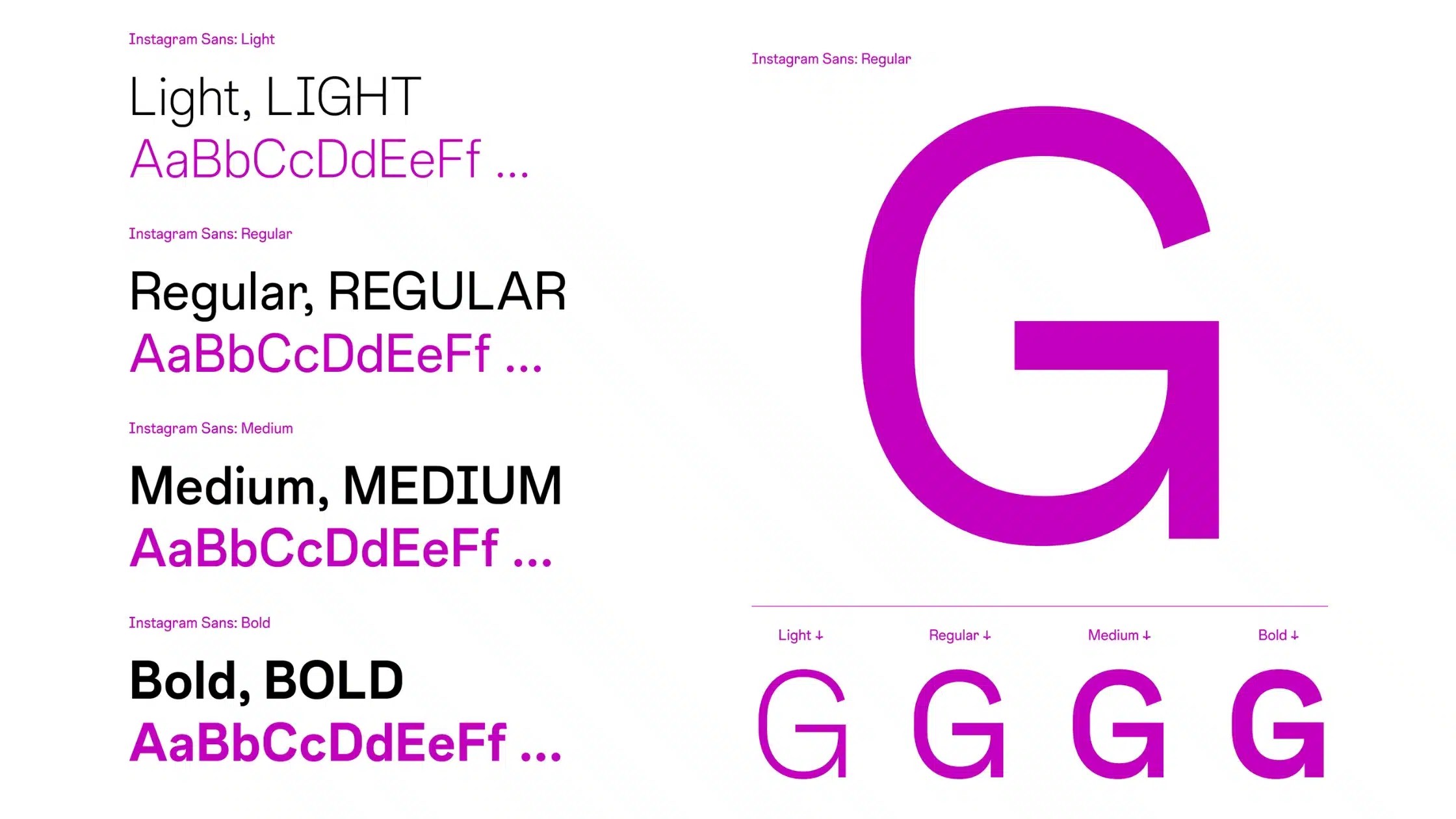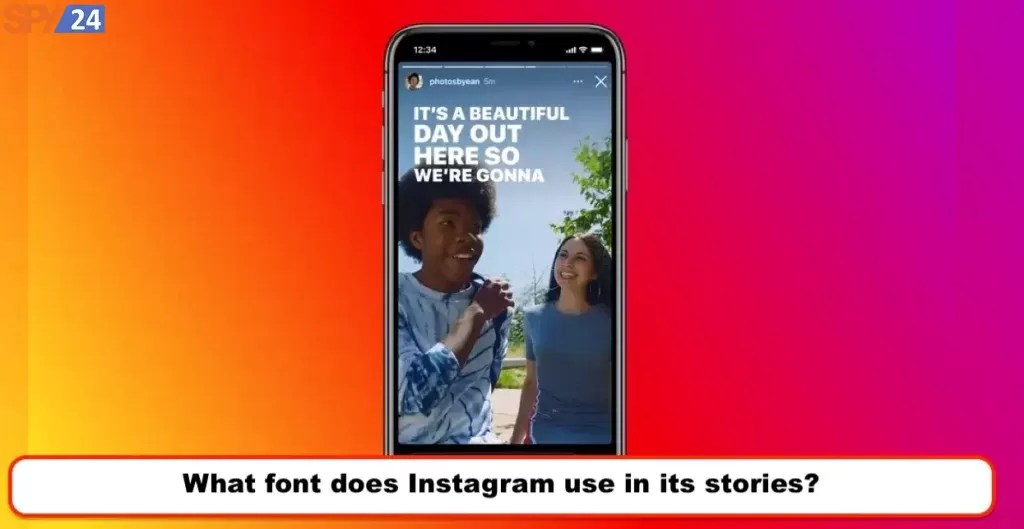
What Font Does Instagram Use Reddit . For comparison, top is helvetica neue, bottom is roboto medium, middle is the screenshot from instagram. Key takeaways on instagram fonts. Instagram sans is our new, global typeface. I write a lot and want to publish it to. The glyph and wordmark inspired this custom style that nods to our heritage. Upload an image, and we’ll search our collection of over 133,000 fonts for the best match. Identify fonts with our font finder tool using an image or photo. The main text style used for the instagram logo, captions, and comments is proxima nova. Proxima nova is the core instagram font used for interface text like captions and comments. Its rounded authenticity promotes visual harmony. Instagram stories uses typefaces like roboto, san francisco, and aveny t.
Proxima nova is the core instagram font used for interface text like captions and comments. The glyph and wordmark inspired this custom style that nods to our heritage. For comparison, top is helvetica neue, bottom is roboto medium, middle is the screenshot from instagram. Key takeaways on instagram fonts. I write a lot and want to publish it to. Instagram stories uses typefaces like roboto, san francisco, and aveny t. Its rounded authenticity promotes visual harmony. Instagram sans is our new, global typeface. Upload an image, and we’ll search our collection of over 133,000 fonts for the best match. The main text style used for the instagram logo, captions, and comments is proxima nova.
What Font Does Instagram Use Reddit Key takeaways on instagram fonts. Instagram sans is our new, global typeface. Upload an image, and we’ll search our collection of over 133,000 fonts for the best match. I write a lot and want to publish it to. The main text style used for the instagram logo, captions, and comments is proxima nova. For comparison, top is helvetica neue, bottom is roboto medium, middle is the screenshot from instagram. Proxima nova is the core instagram font used for interface text like captions and comments. The glyph and wordmark inspired this custom style that nods to our heritage. Identify fonts with our font finder tool using an image or photo. Its rounded authenticity promotes visual harmony. Key takeaways on instagram fonts. Instagram stories uses typefaces like roboto, san francisco, and aveny t.
How To Find And Add Custom Fonts For Instagram Profile (Guide) What Font Does Instagram Use Reddit Key takeaways on instagram fonts. Identify fonts with our font finder tool using an image or photo. For comparison, top is helvetica neue, bottom is roboto medium, middle is the screenshot from instagram. Upload an image, and we’ll search our collection of over 133,000 fonts for the best match. The glyph and wordmark inspired this custom style that nods to. What Font Does Instagram Use Reddit.
How to use all the new fonts on Instagram StoriesHelloGiggles What Font Does Instagram Use Reddit The main text style used for the instagram logo, captions, and comments is proxima nova. Instagram stories uses typefaces like roboto, san francisco, and aveny t. Its rounded authenticity promotes visual harmony. Instagram sans is our new, global typeface. The glyph and wordmark inspired this custom style that nods to our heritage. For comparison, top is helvetica neue, bottom is. What Font Does Instagram Use Reddit.
10+ Best Fonts for Instagram for Social Media Branding 2023 What Font Does Instagram Use Reddit Identify fonts with our font finder tool using an image or photo. The glyph and wordmark inspired this custom style that nods to our heritage. Upload an image, and we’ll search our collection of over 133,000 fonts for the best match. Its rounded authenticity promotes visual harmony. Instagram stories uses typefaces like roboto, san francisco, and aveny t. I write. What Font Does Instagram Use Reddit.
Instagram Launches New Fonts & Stickers for Stories Abby (King) b What Font Does Instagram Use Reddit The main text style used for the instagram logo, captions, and comments is proxima nova. The glyph and wordmark inspired this custom style that nods to our heritage. Proxima nova is the core instagram font used for interface text like captions and comments. For comparison, top is helvetica neue, bottom is roboto medium, middle is the screenshot from instagram. Instagram. What Font Does Instagram Use Reddit.
What Font Does Instagram Use? Instagram Top Font Picks for 2023 Revealed Social Pros What Font Does Instagram Use Reddit Identify fonts with our font finder tool using an image or photo. Upload an image, and we’ll search our collection of over 133,000 fonts for the best match. Proxima nova is the core instagram font used for interface text like captions and comments. For comparison, top is helvetica neue, bottom is roboto medium, middle is the screenshot from instagram. Key. What Font Does Instagram Use Reddit.
What Font Does Instagram Use? for Stories Bio Messages What Font Does Instagram Use Reddit Upload an image, and we’ll search our collection of over 133,000 fonts for the best match. Key takeaways on instagram fonts. The glyph and wordmark inspired this custom style that nods to our heritage. The main text style used for the instagram logo, captions, and comments is proxima nova. For comparison, top is helvetica neue, bottom is roboto medium, middle. What Font Does Instagram Use Reddit.
Instagram Fonts List of the best IG Font Generators to Use What Font Does Instagram Use Reddit For comparison, top is helvetica neue, bottom is roboto medium, middle is the screenshot from instagram. The glyph and wordmark inspired this custom style that nods to our heritage. Its rounded authenticity promotes visual harmony. Proxima nova is the core instagram font used for interface text like captions and comments. Instagram sans is our new, global typeface. The main text. What Font Does Instagram Use Reddit.
What Font Does Instagram Use? TechCult What Font Does Instagram Use Reddit Instagram sans is our new, global typeface. Proxima nova is the core instagram font used for interface text like captions and comments. For comparison, top is helvetica neue, bottom is roboto medium, middle is the screenshot from instagram. The main text style used for the instagram logo, captions, and comments is proxima nova. Key takeaways on instagram fonts. I write. What Font Does Instagram Use Reddit.